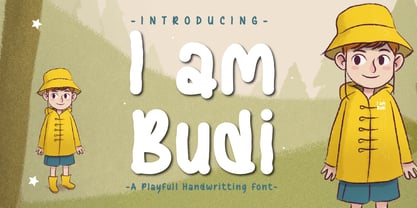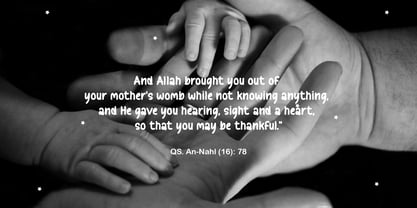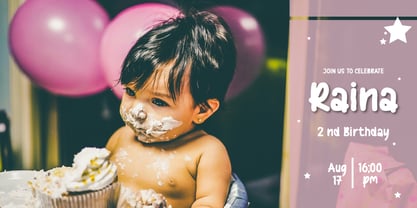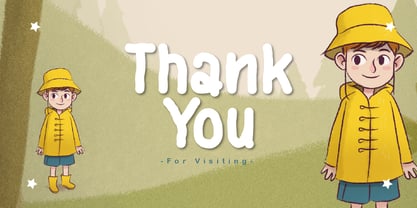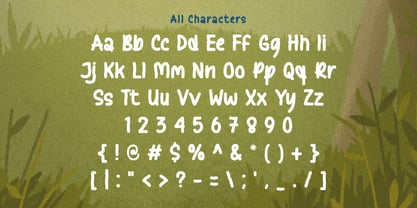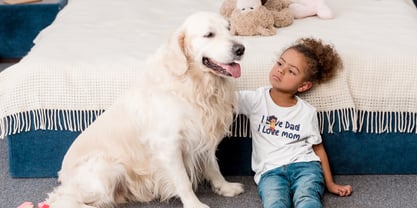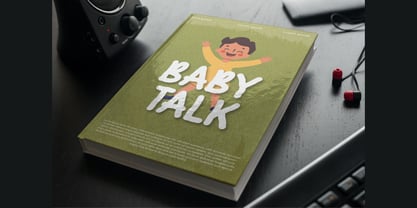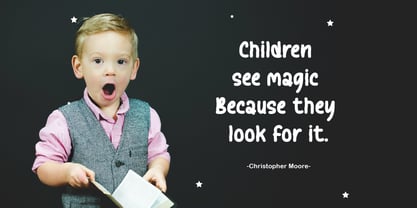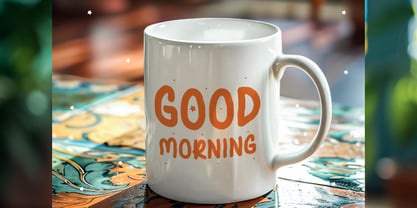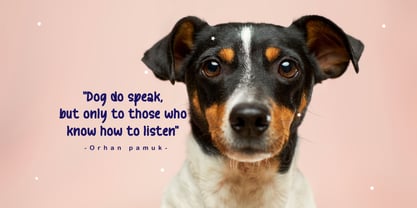
I Am Budi
The I Am Budi Font Family was designed by Gugun Gunawan and published by Patlot Digital Studio. I Am Budi contains 1 styles. More about this family
The “I am Budi” font is a cheerful, handwritten font. Take your designs to the next level with this eye-catching typeface! Use it whenever you need to get creative for various children’s projects, posters, t-shirt designs, Happy Birthday captions, funny titles, and more.